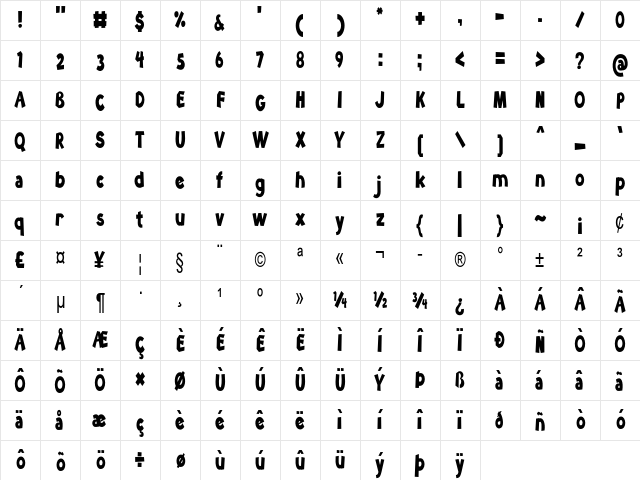
Complete Bubble Talk Condensed Regular glyph index. Displaying only characters natively supported by Bubble Talk Condensed Regular font.
Bubble Talk has an approachable, lighthearted character - its loose, expressive forms are well-suited to children's content, casual branding, and fun-first design.
Font Pairing: Pairs well with a rounded or humanist sans for body copy, maintaining the friendly tone without relying on Bubble Talk to carry extended reading.
Pro Tip: Use Bubble Talk at larger display sizes where its expressive character can land. Pair with a clean, simple sans for body copy to maintain readability.